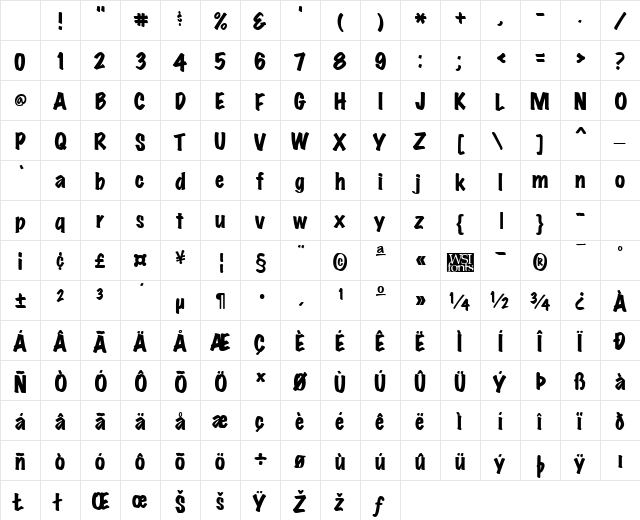
MarkingPenHeavy Regular Free Font
MarkingPenHeavy Regular
MarkingPenHeavy Family
Design Context for MarkingPenHeavy
MarkingPenHeavy is a composed and adaptable typeface that performs quietly and consistently across a wide range of design contexts.